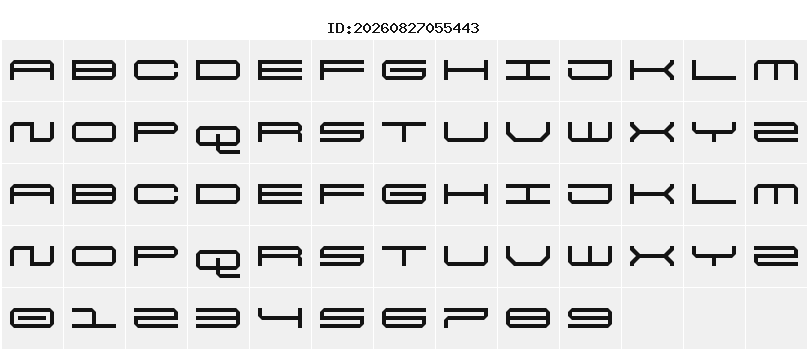
5Final Frontier Preview
• Font Name: 5Final Frontier
• Designer: Noah - 10 year old typomaniac
• Description: ‚Äú5Final Frontier‚Äù was built with FontStruct
About 5Final Frontier.ttf
5Final Frontier.ttf is a modern, elegant sans-serif font designed for ultimate readability and visual harmony. Perfect for branding, headlines, web design, and print materials.